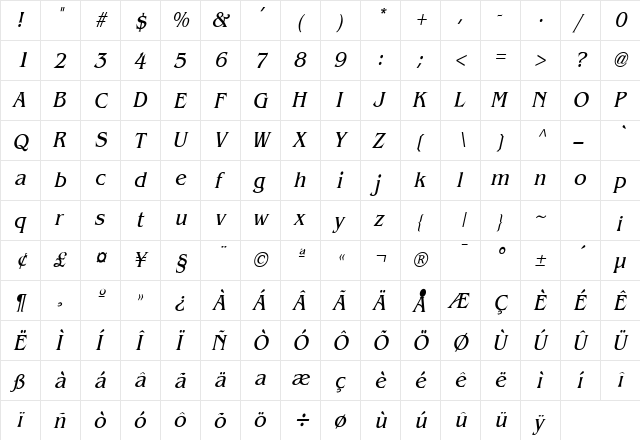
Bangle Condensed Italic
Design Context for Bangle Condensed Typeface
Bangle Condensed takes a measured approach to typography — its balanced proportions and neutral character make it a reliable workhorse for both digital and print work. The slanted form adds forward momentum and visual energy. The condensed width makes it efficient for tight spaces without sacrificing legibility.
Pro Tip: Use Bangle Condensed for emphasis, pull quotes, and subheadings where its slanted energy can add rhythm to the layout.